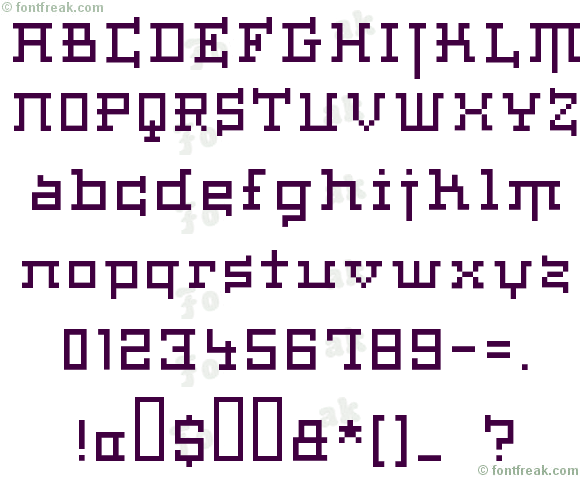
Haiku
The Haiku font by Levi is a striking example of a decorative display typeface that elegantly blends simplicity with artistic flair. Released in 2001 as freeware, this font features a unique design that draws inspiration from the minimalist aesthetics of traditional haiku poetry. The Haiku font showcases a clean stroke weight with subtle variations that create an engaging visual rhythm. Its moderate contrast and distinct spacing between characters enhance readability while allowing for an artistic touch that captivates the viewer.
This font is ideal for various creative applications. Its eye-catching style makes it perfect for wedding invitations, where the delicate yet bold lettering can evoke a sense of romance and elegance. Additionally, the Haiku font works beautifully on movie posters, lending a modern and sophisticated vibe that can draw attention to any film. Restaurant menus can also benefit from its unique character, making dishes stand out while maintaining a casual yet refined appearance. For content creators looking to elevate their branding, using the Haiku font in social media graphics or logos can help convey a contemporary aesthetic that resonates with audiences.
Targeting graphic designers, small business owners, and content creators alike, the Haiku font provides a versatile option for enhancing visual communication. Its distinctive style allows users to express creativity while maintaining professionalism, making it a valuable asset in any designer's toolkit.